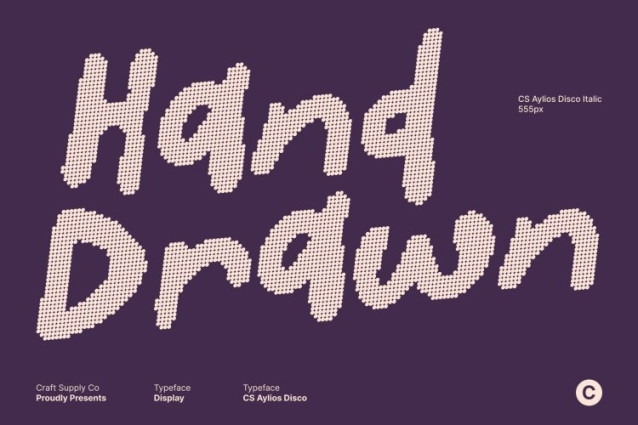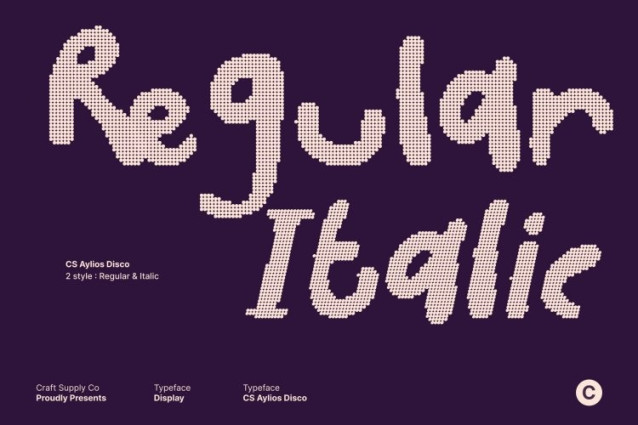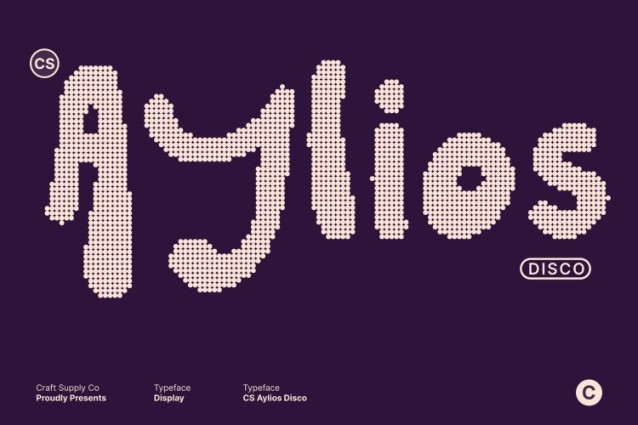
CS Aylios Disco Font
CS Aylios Disco Font This is a hand-drawn display font bursting with groovy personality and joyful movement. Each letter is crafted with bold curves and playful shapes, creating a lively rhythm that feels expressive, fun, and full of character. Its whimsical construction instantly brings color, creativity, and upbeat energy to any design.
Sweet Cream-Inspired Curves with Disco Flair
Inspired by the smooth swirl of sweet cream, this font features decorative curves that feel soft, flowing, and indulgent. The creamy shapes combined with a subtle disco attitude evoke playful motion, retro fun, and festive vibes perfect for designs that want to feel sweet, funky, and eye-catching all at once.
Perfect for Fun Branding and Youthful Visual Identity
This font shines in branding projects that embrace a cheerful and youthful spirit. Ideal for logos, packaging, and brand visuals, it’s especially well-suited for confectionery, cafés, kids’ products, lifestyle brands, and creative small businesses that want to stand out with charm and originality.
Ideal for Posters, Social Media, and Creative Display Designs
From bold posters and event graphics to vibrant social media visuals, this font excels as a display centerpiece. Its expressive hand-drawn forms and groovy disco movement make it perfect for playful headlines, artistic layouts, and decorative typography in both digital and print applications bringing every design to life with sweet, funky energy.